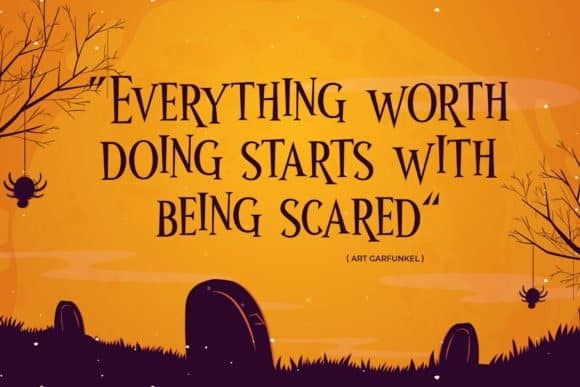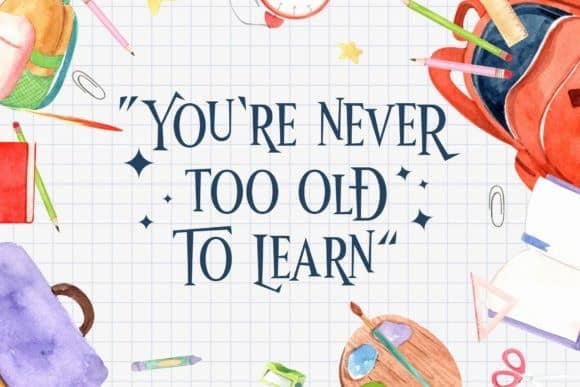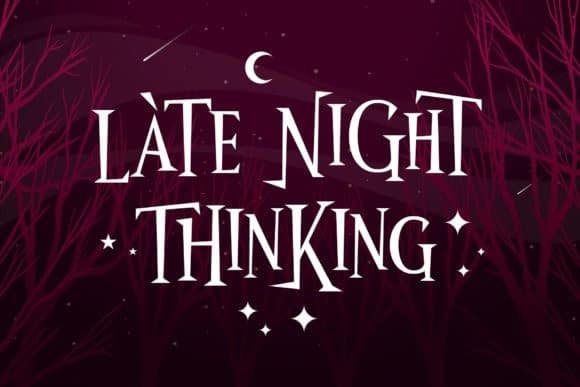
Wonder Night Display Font is a minimalist luxury and gorgeous font that is both classically elegant and inherently modern. It’s designed and shared by Arterfak Project. This typeface is a lovely font that will immediately take you into a fairytale land. Magic and a bit spooky, this serif font will be the ideal choice for any Halloween or October party design you wish to develop.